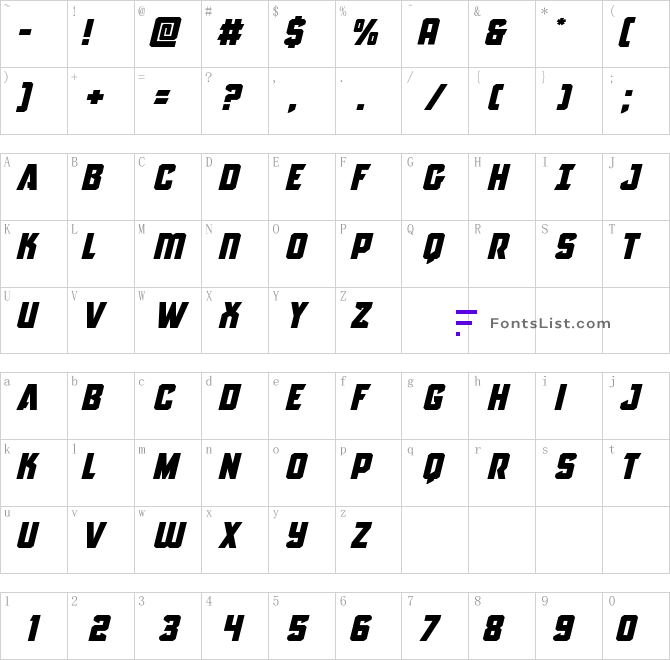
- Font Name:Antilles Expanded Italic
Antilles-Expanded-Italic.ttf is a very beautiful artistic font, Antilles-Expanded-Italic.ttf is widely used in the design and printing of various books and pictures,Antilles-Expanded-Italic.ttf has a strong visual impact,Antilles-Expanded-Italic.ttf is a commonly used font in newspapers, magazines and books, and is used in posters, e-commerce Poster design, store design, logo design, font design and other fields.Antilles-Expanded-Italic.